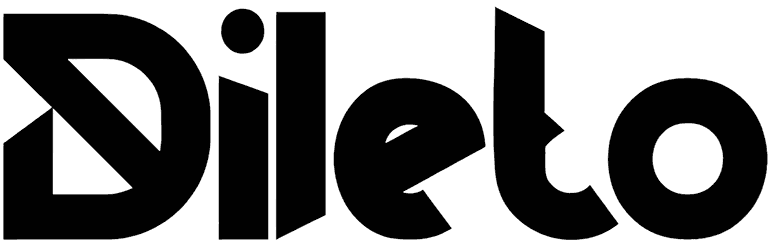
Dileto Font
Here we come again to introduce you to a modern font like Dileto that comes with a unique style and strongly impresses the audience, so when the customers look at your graphic content while their eyes go up and down following its magical flow, they will immediately fall in love with your magazines, presentations, e-books, covers, or business cards.
This techno font has the real potential to bring a sense of futuristic, dynamic, or vivacity to your project.